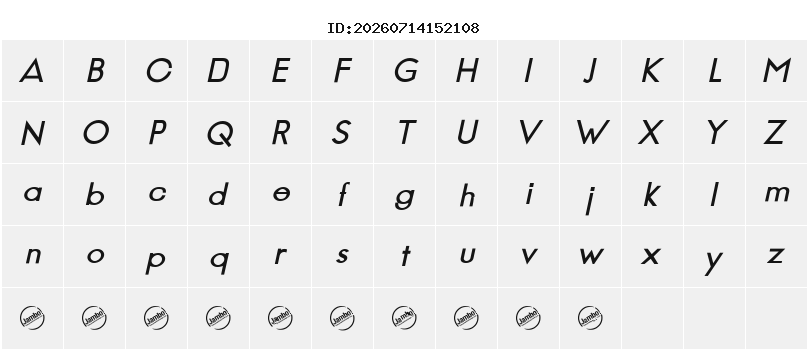
Jambetica Preview
• Font Name: Jambetica
• Font ID: Jambo!Fonts&Design: Jambetica Bold Italic: 2014
• Full Font Name: Jambetica-BoldItalic
• PostScript Name: Jambetica-BoldItalic
• Designer: Jambo! Fonts & Design
• Manufacturer: Jambo! Fonts & Design
About Jambetica.ttf
Jambetica.ttf is a modern, elegant sans-serif font designed for ultimate readability and visual harmony. Perfect for branding, headlines, web design, and print materials.